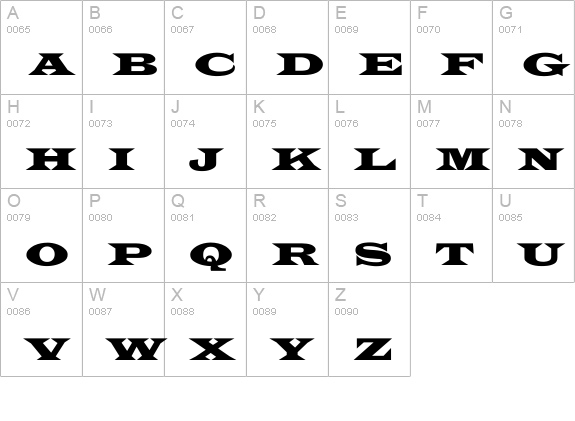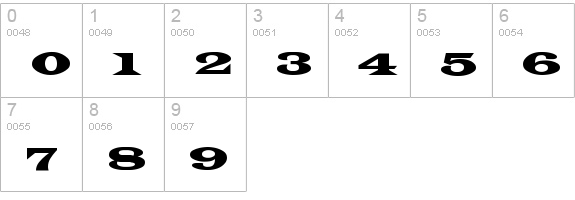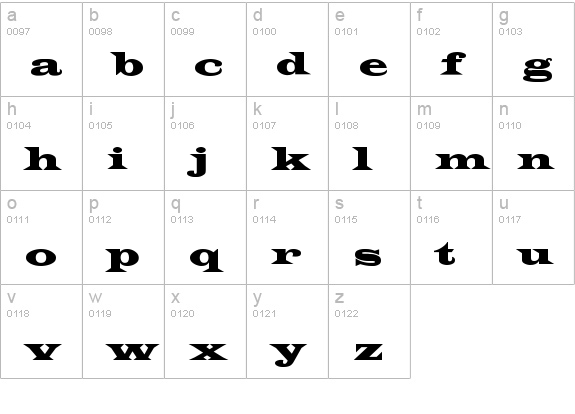
Espana Wide is a distinctive, extended-width variant in the Espana typeface family \xE2\x80\x94 well suited to design and typography projects.
Espana Wide font is a modern and sleek typeface that exudes elegance and sophistication. Its wide letterforms make a bold statement while maintaining readability and clarity. Perfect for headlines, logos, and branding, Espana Wide is a versatile font that will elevate any design project. The best part? Espana Wide is available for free download at FontsMarket.com. Simply visit the website and start using this stunning font in your projects today. With its clean lines and contemporary style, Espana Wide is sure to make a lasting impression.